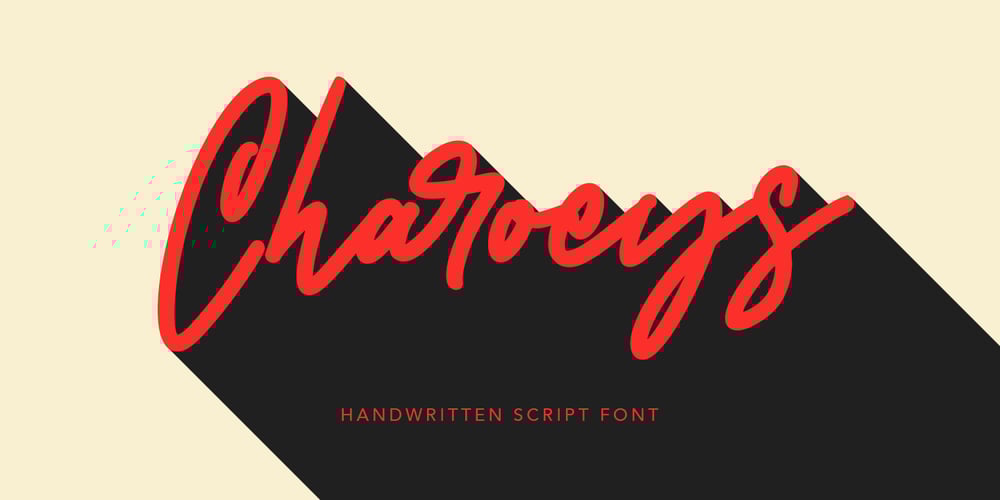
Charoeys Font Family was designed by Gilang Maulana and published by Maulana Creative. Charoeys contains 1 styles and family package options. Give your designs an authentic handcrafted feel. “Charoeys Handwritten Script Font” is perfectly suited to signature, stationery, logo, typography quotes, magazine or book cover, website header, clothing, branding, packaging design and more.Thanks for use this font ~ Maulana